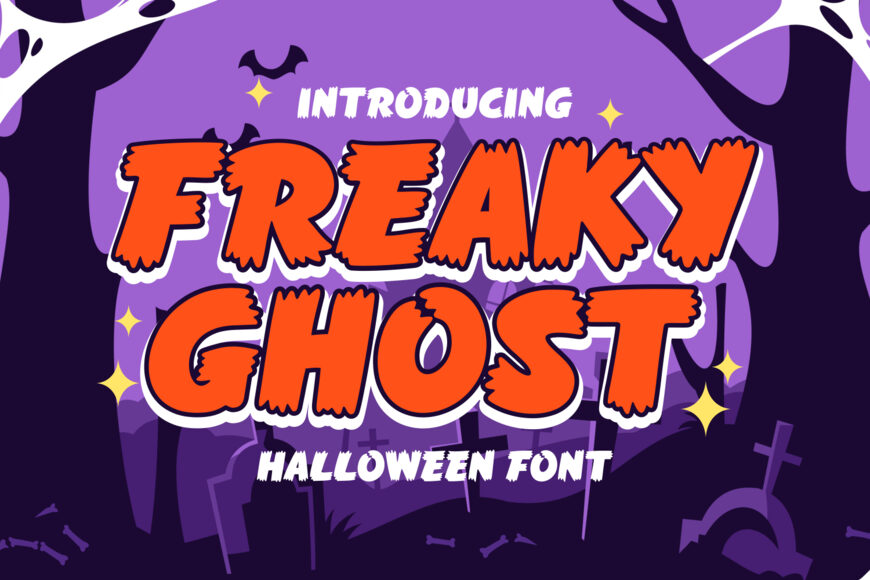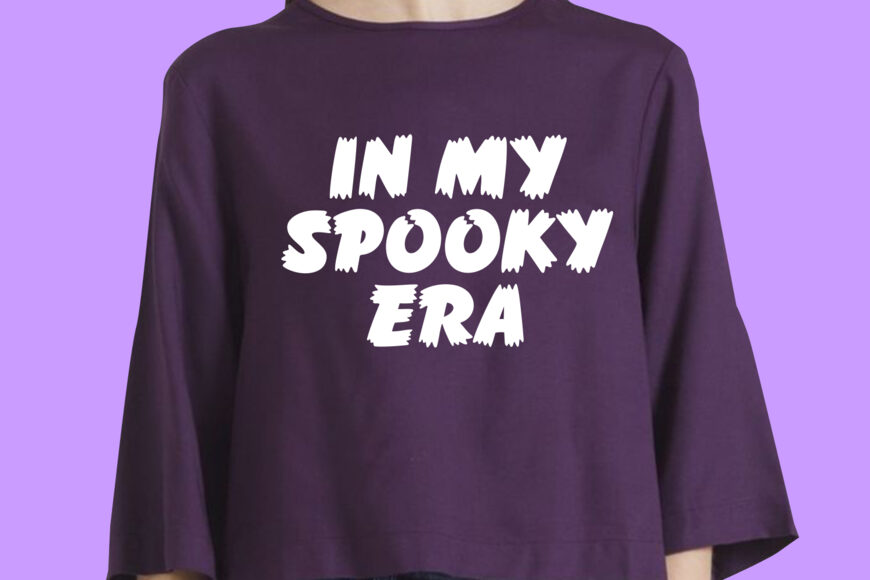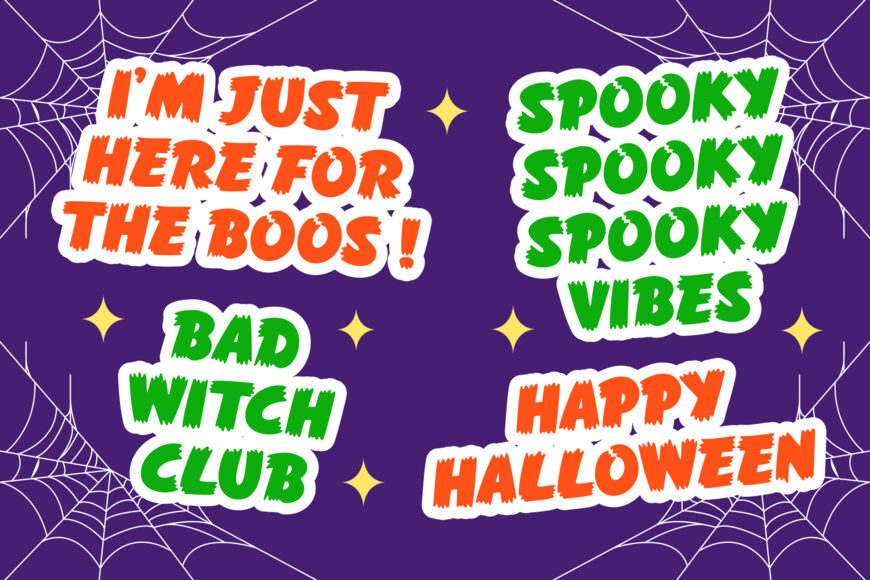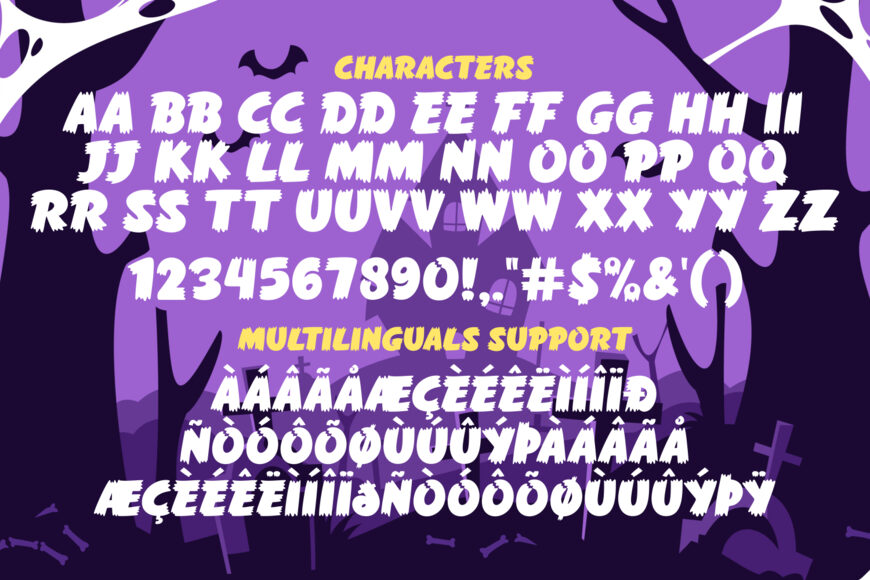
Unleash the spirit of Halloween with Freaky Ghost, a bewitching bold font with a stylish, playful retro vibe. Craft a haunting masterpiece with this versatile display font, ideal for enhancing any spooky project.
Let Freaky Ghost add a vintage touch to your greeting cards or transport your readers to eerie realms with captivating book covers. This font is perfect for stationery that stands out, bold magazine headlines, creative procreation, and eye-catching apparel and mug designs.